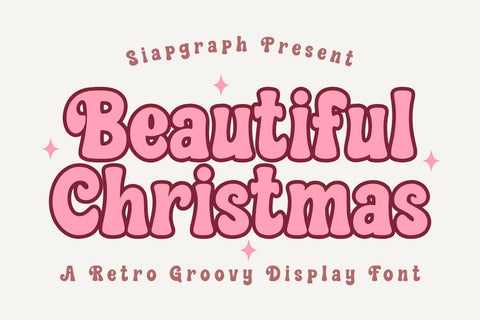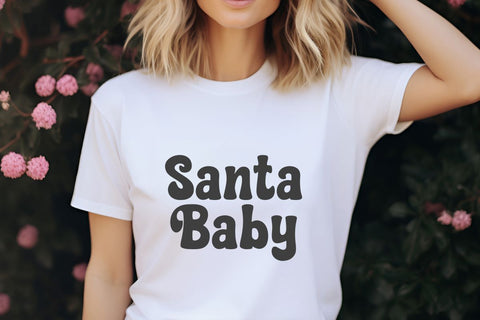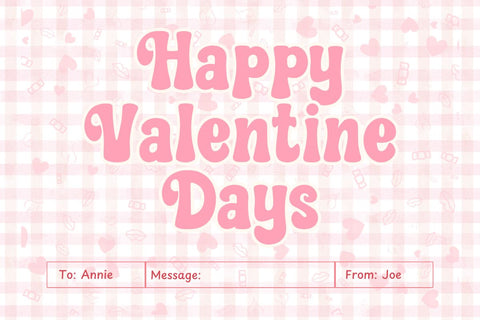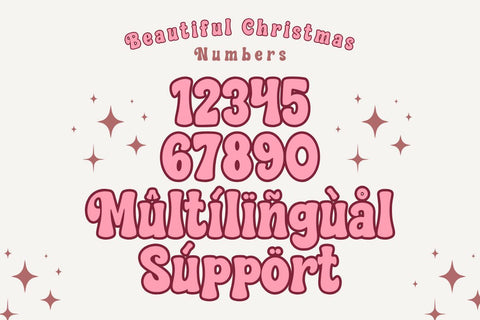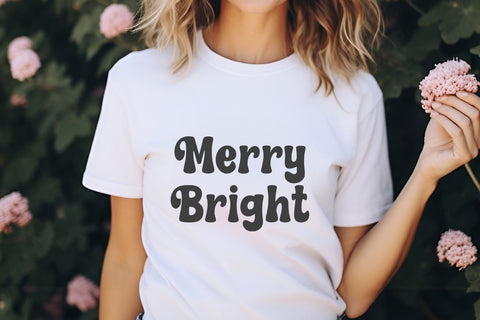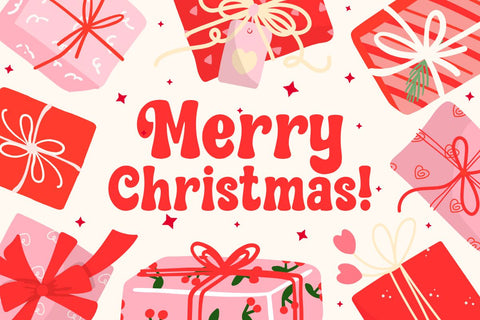
Beautiful Christmas - Retro Groovy Font
Beautiful Christmas is a retro groovy display font designed to bring festive cheer and playful charm to your holiday projects. With its bold, bubbly letterforms and nostalgic style, this font is perfect for Cricut crafters, sublimation designers, and Print On Demand entrepreneurs looking to create standout Christmas products. Whether you’re designing holiday t-shirts, cozy mugs, festive tote bags, or Christmas cards, Beautiful Christmas adds a warm retro vibe that instantly spreads joy. Fully PUA encoded and available in OTF and TTF formats, it’s a must-have font for seasonal crafting and holiday branding.